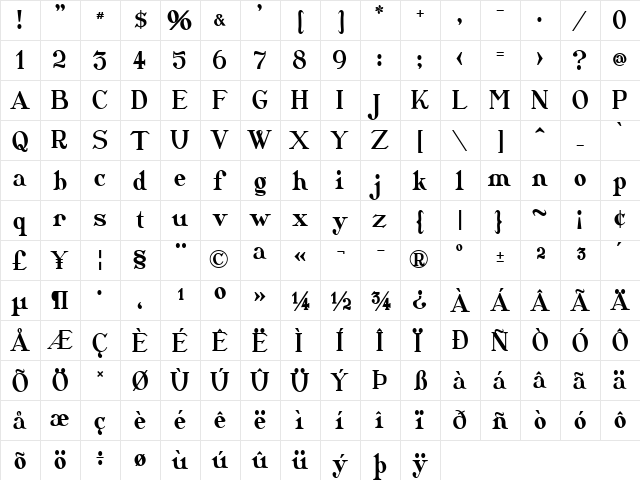
CatShop Regular
| Foundry | Peter Wiegel |
| Designer | Peter Wiegel |
Design Context for CatShop Typeface
CatShop takes a measured approach to typography — its balanced proportions and neutral character make it a reliable workhorse for both digital and print work.